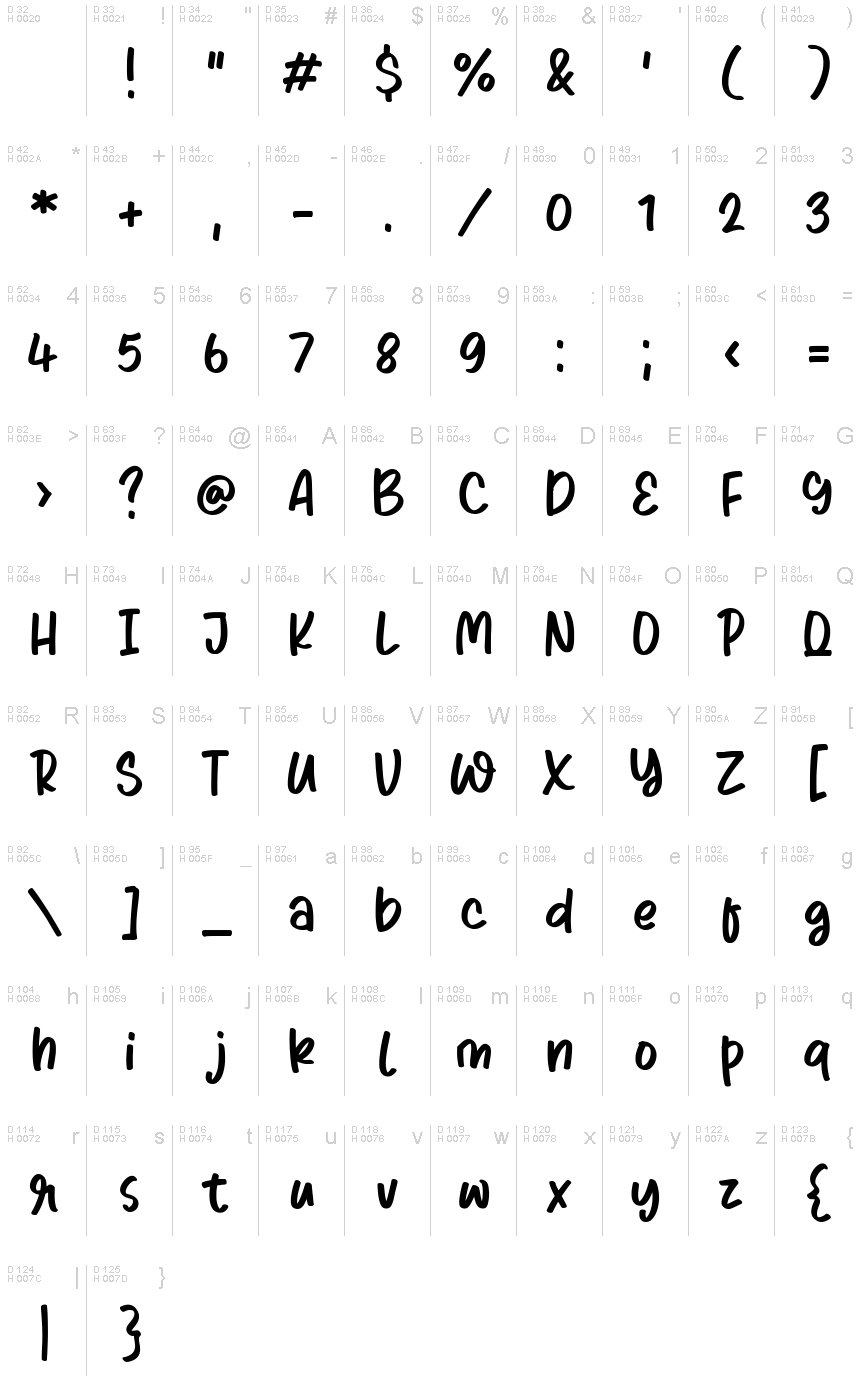
Bluesoda font was designed by Balpirick Studio as a fun characterful Cartoon Display Font with smooth curves and medium contrast. This is an informal brushed handwritten font for personal designs. Bluesoda embodies casualness, playfulness, and informality. It is the sort of font that will sit fluidly in the background even as it adds a playful personal touch.
However, this font's unique quirky characteristics also stand out sufficiently to give visual interest and personality to everything from quotes, notes et cetera so on to more commercial designs like cards, branding & logo; product packaging & labels; stationery & merchandise… Just keep going!
Bluesoda
Balpirick Studio